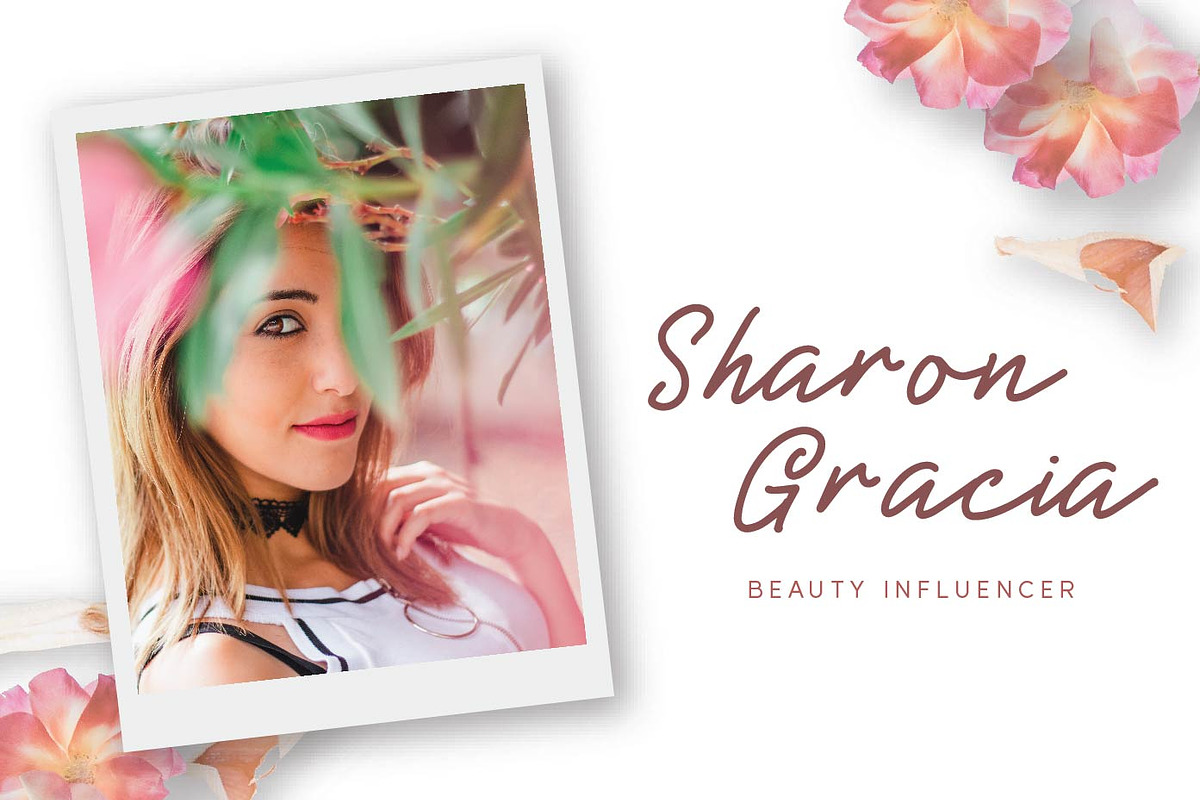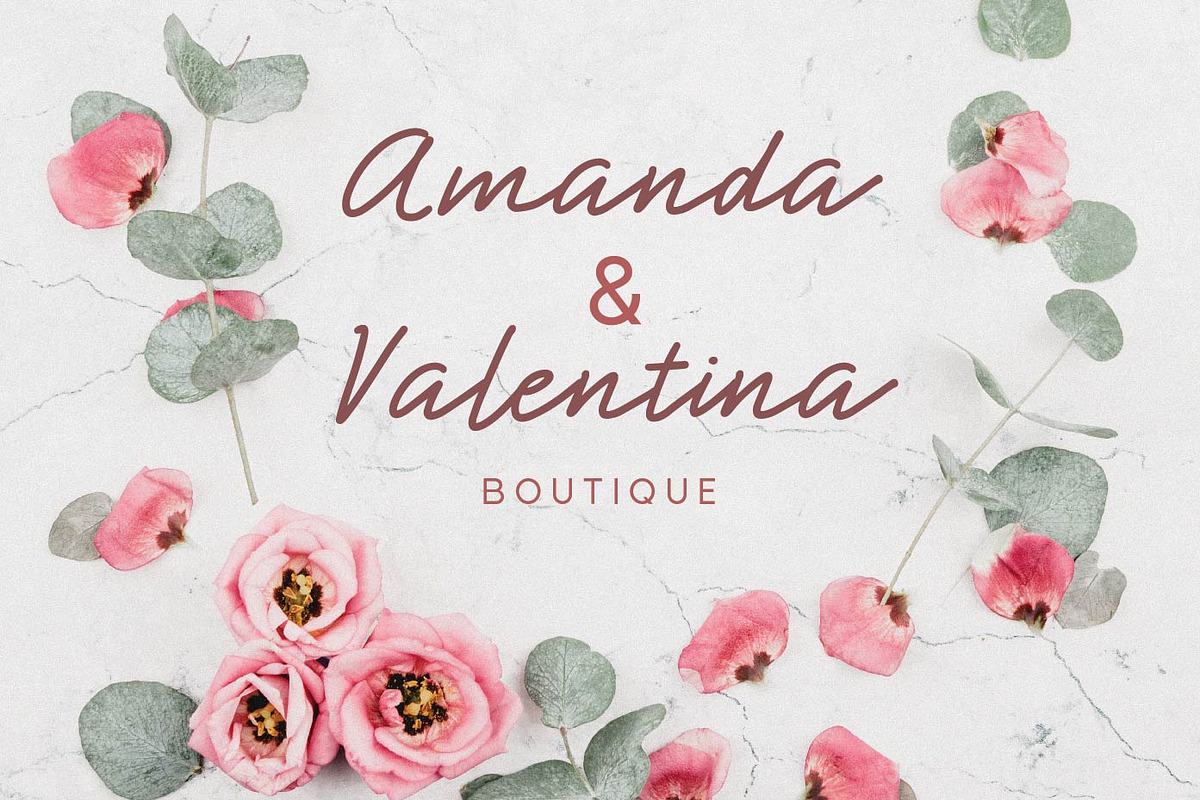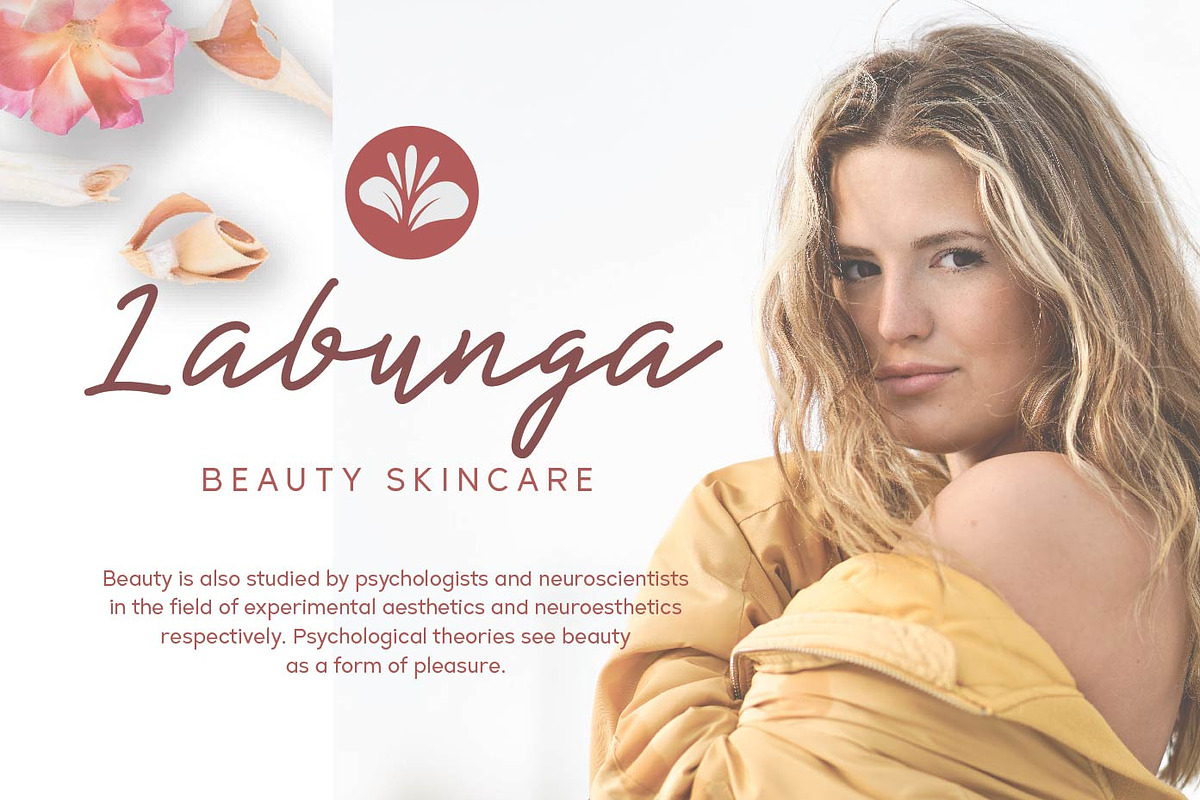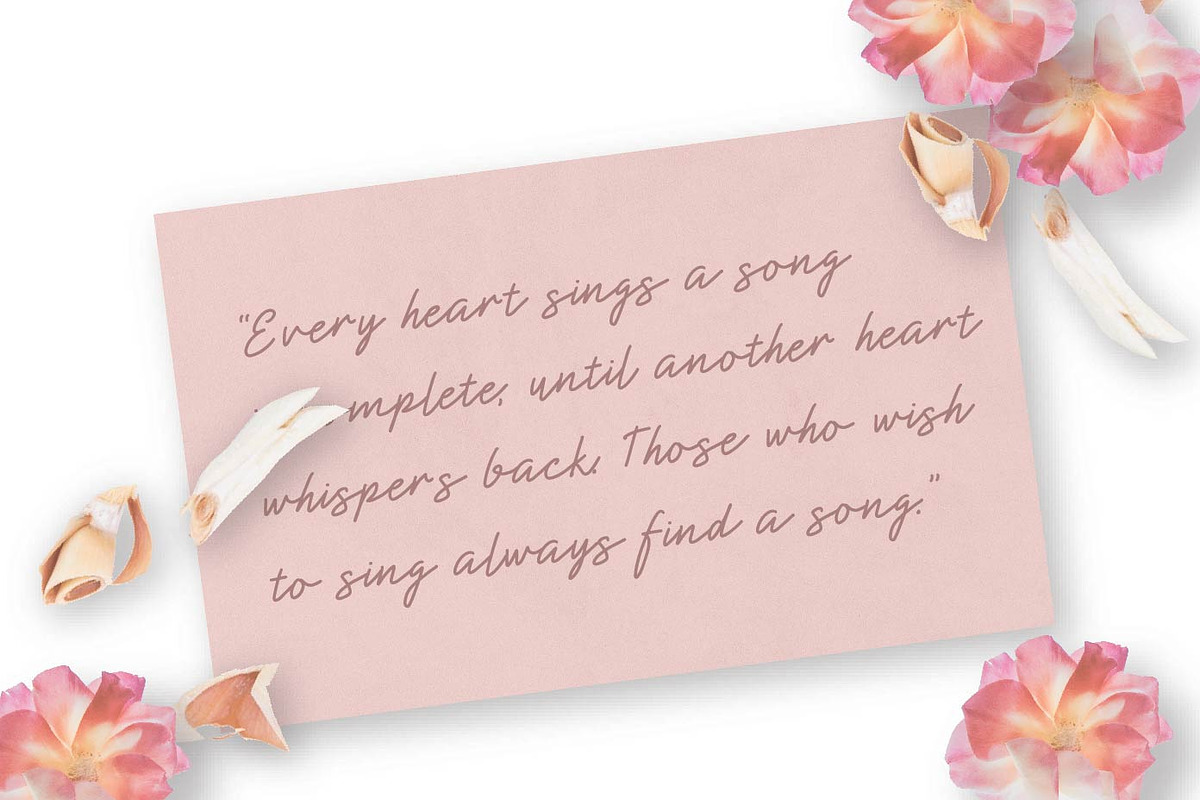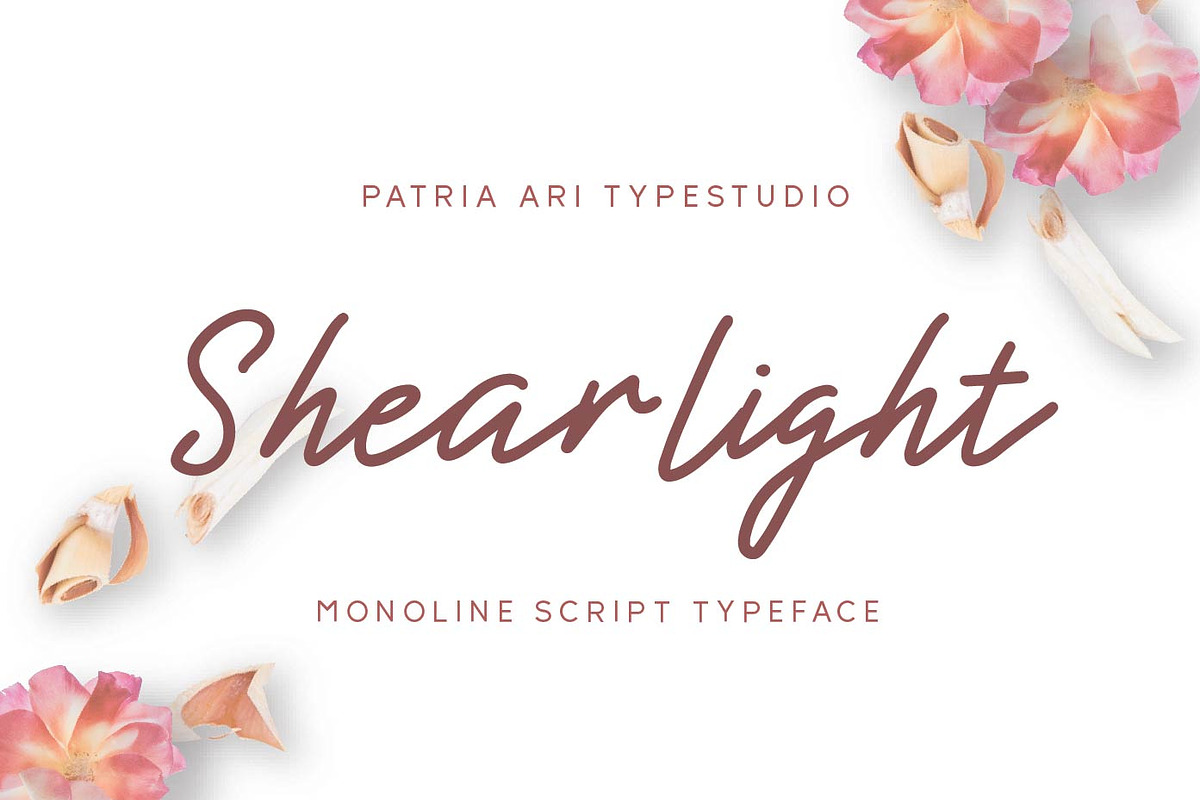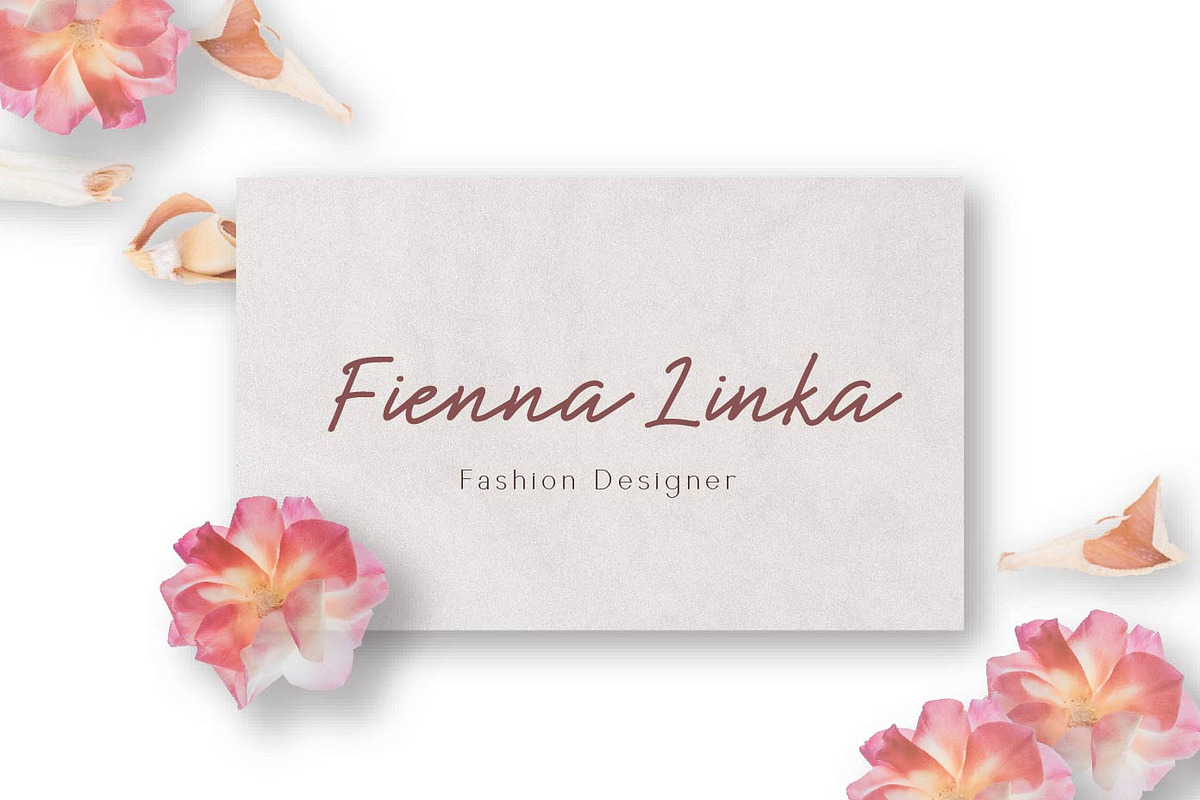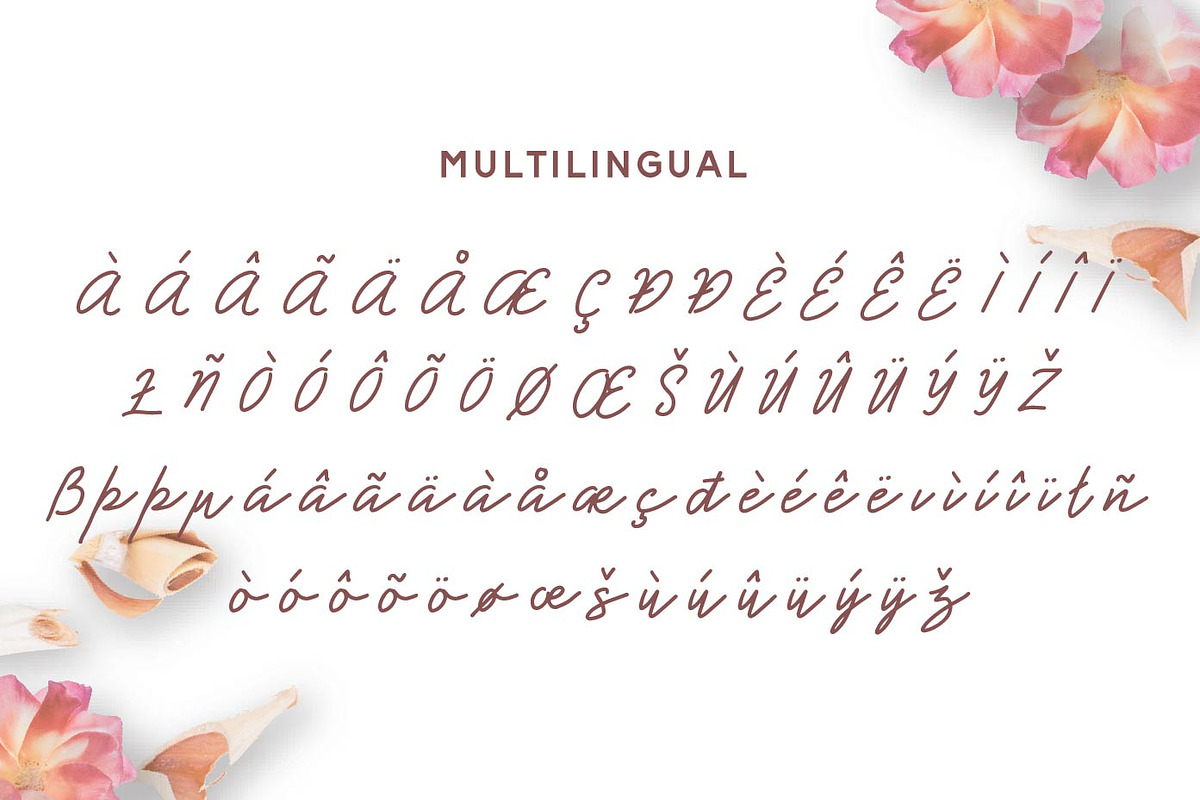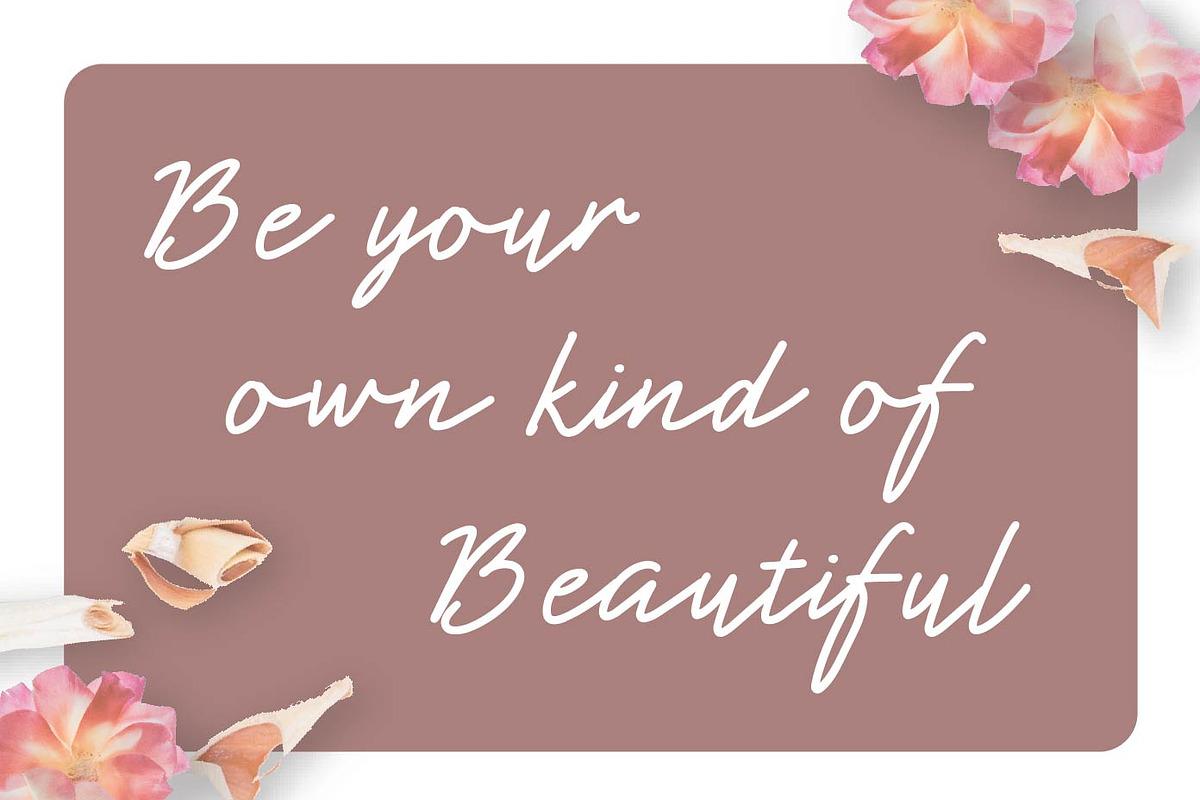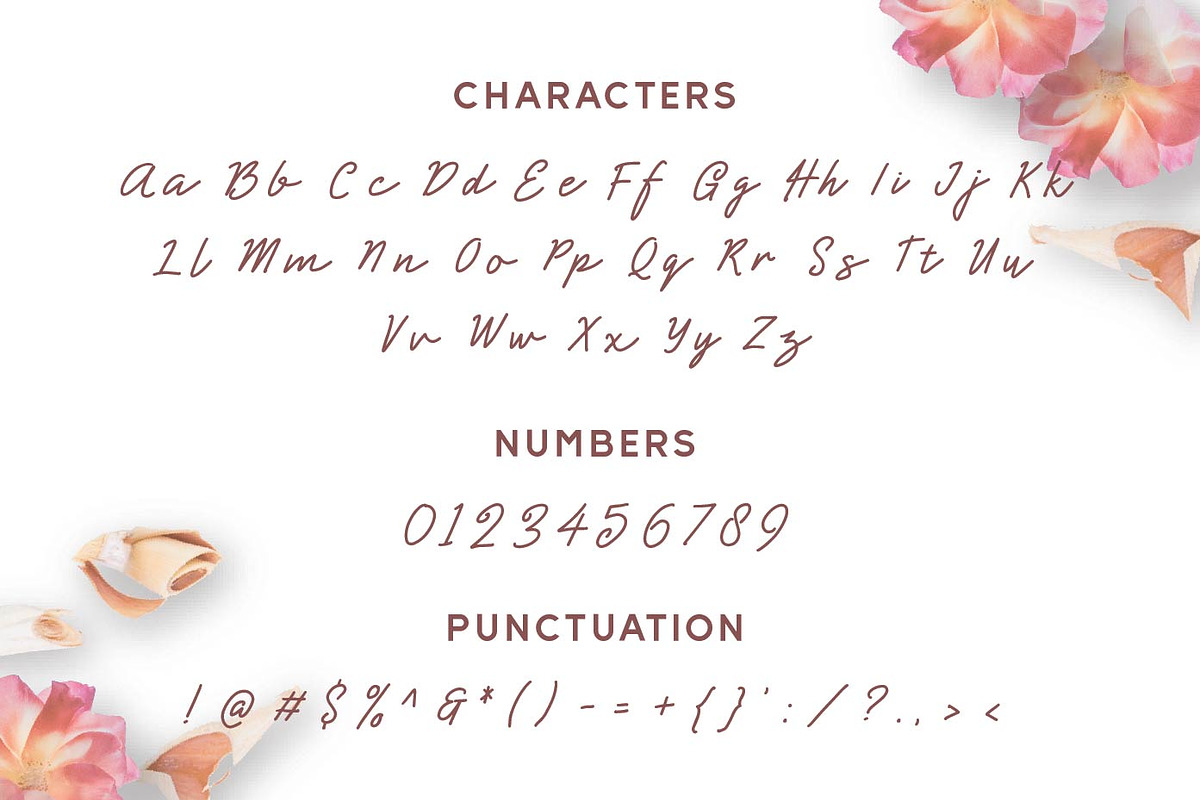
Shearlight - Monoline Script
Shearlight is a beautiful monoline script typeface with elegant but strong shapes in every glyphs.
Shearlight is perfect for branding projects, logo, wedding designs, social media posts, advertisements, product packaging, product designs, label, photography, watermark, invitation, stationery and any projects that need handwriting taste.
Fonts featured :
Uppercase Lowercase Numbers Punctuation & symbols Accented characters